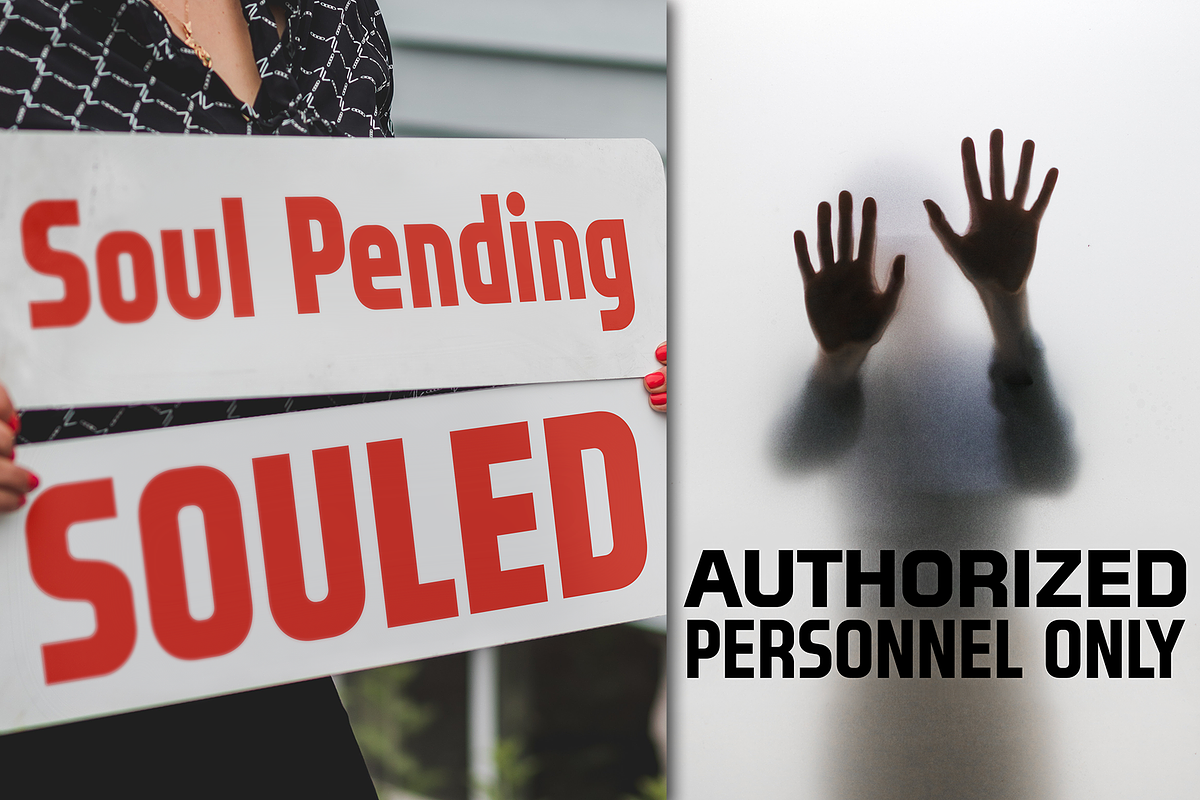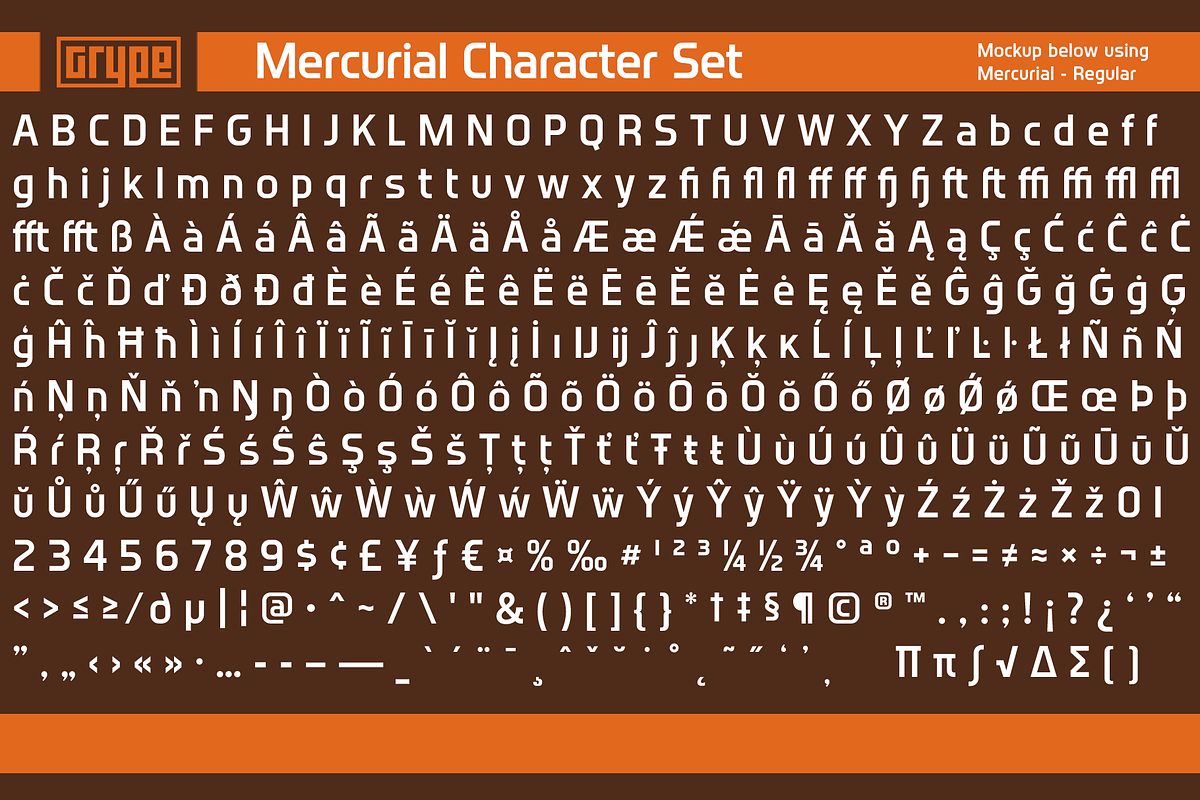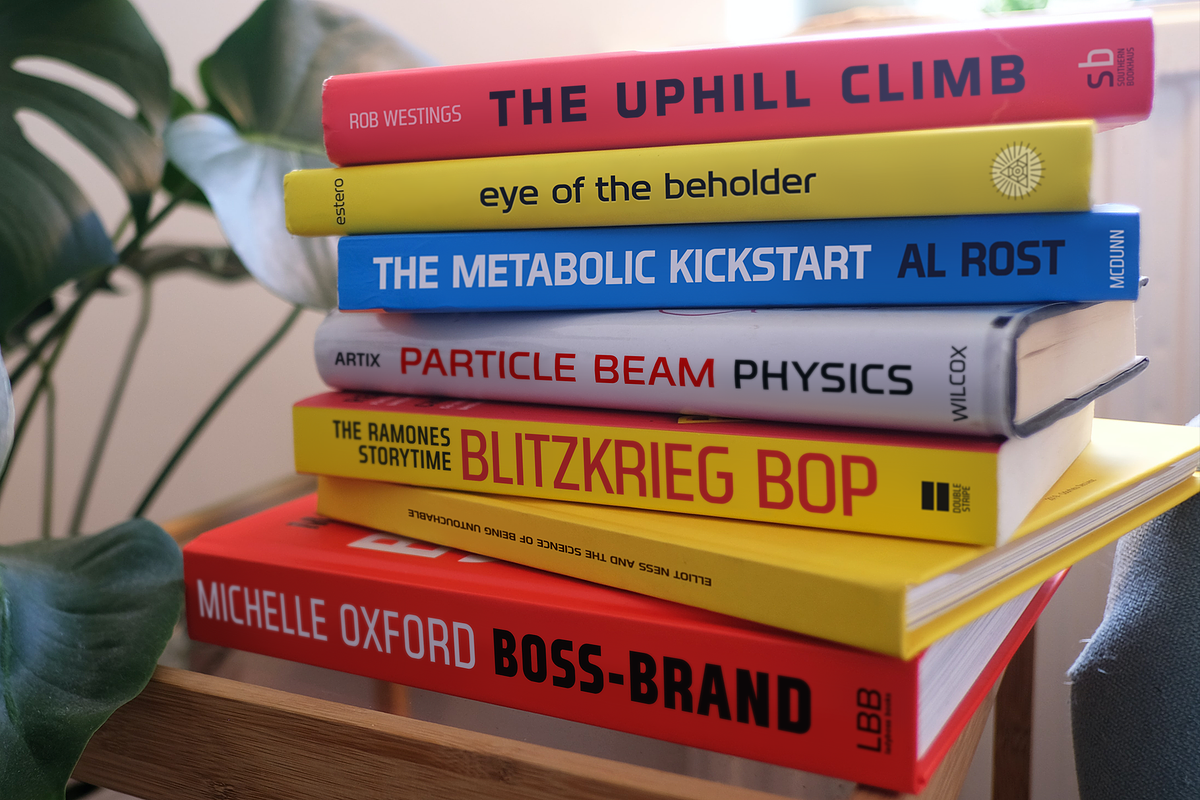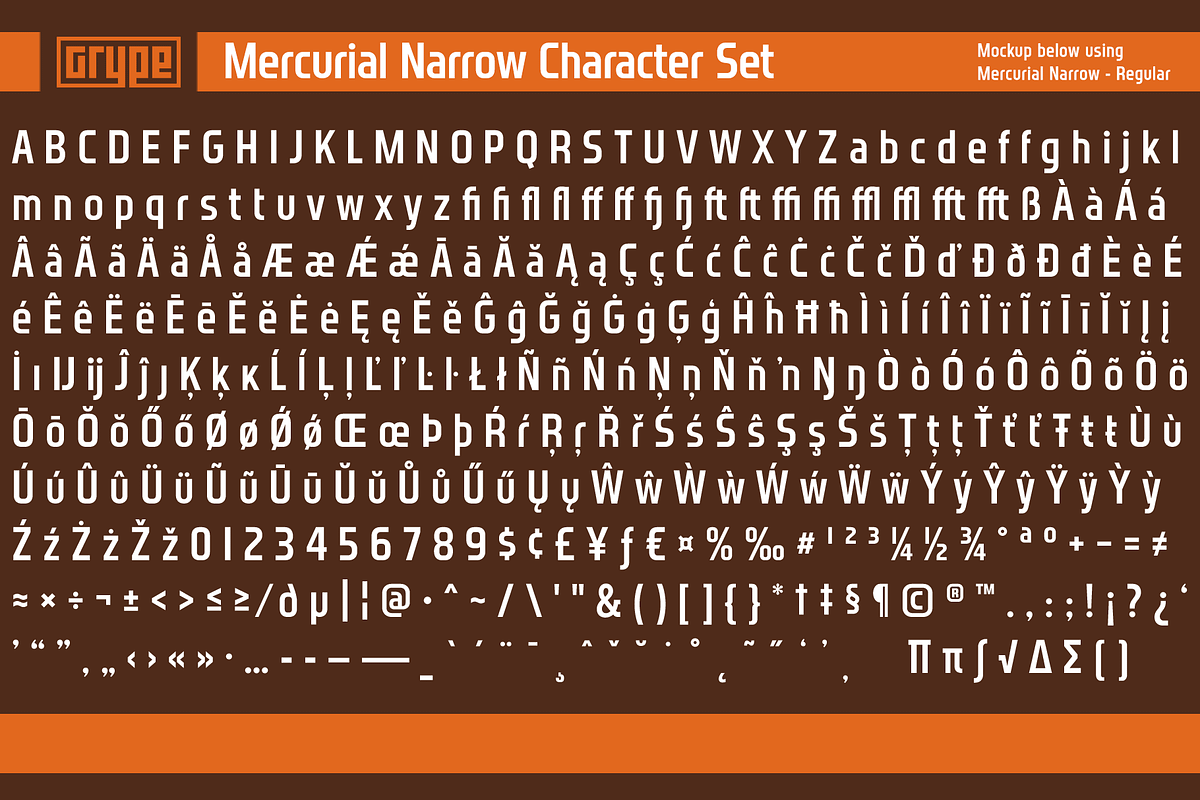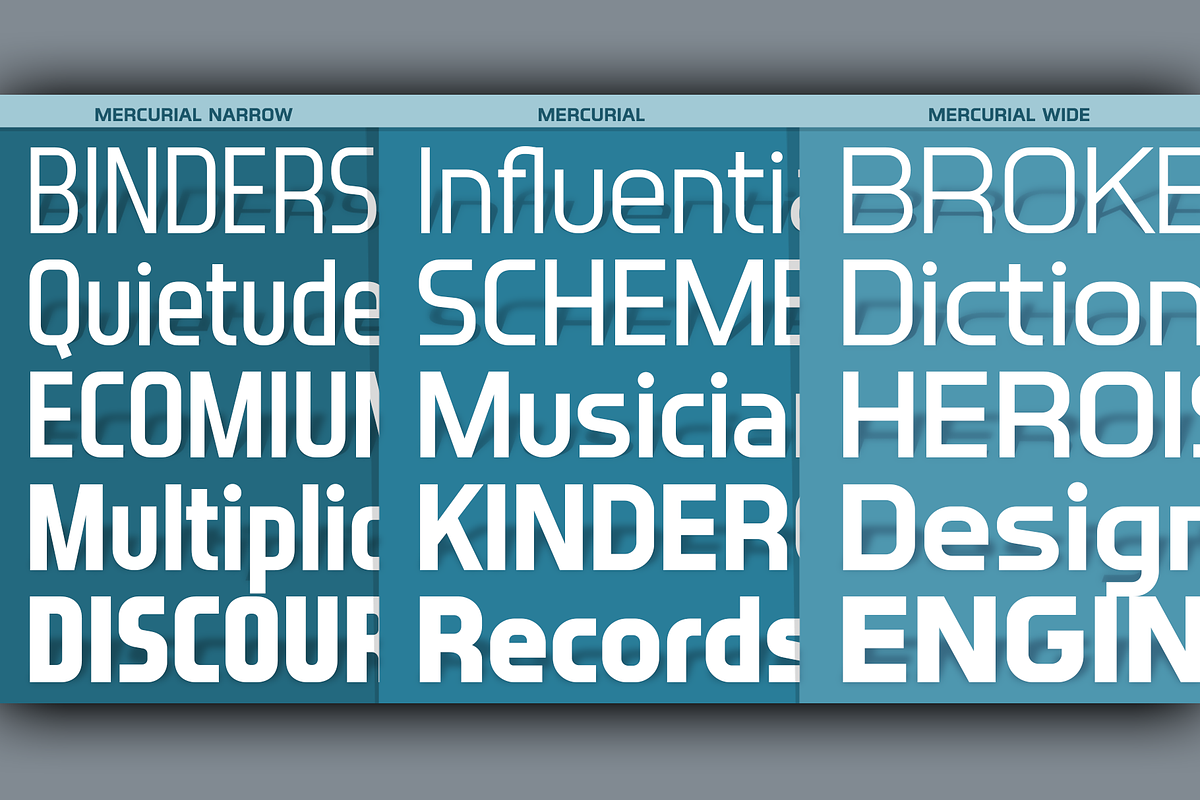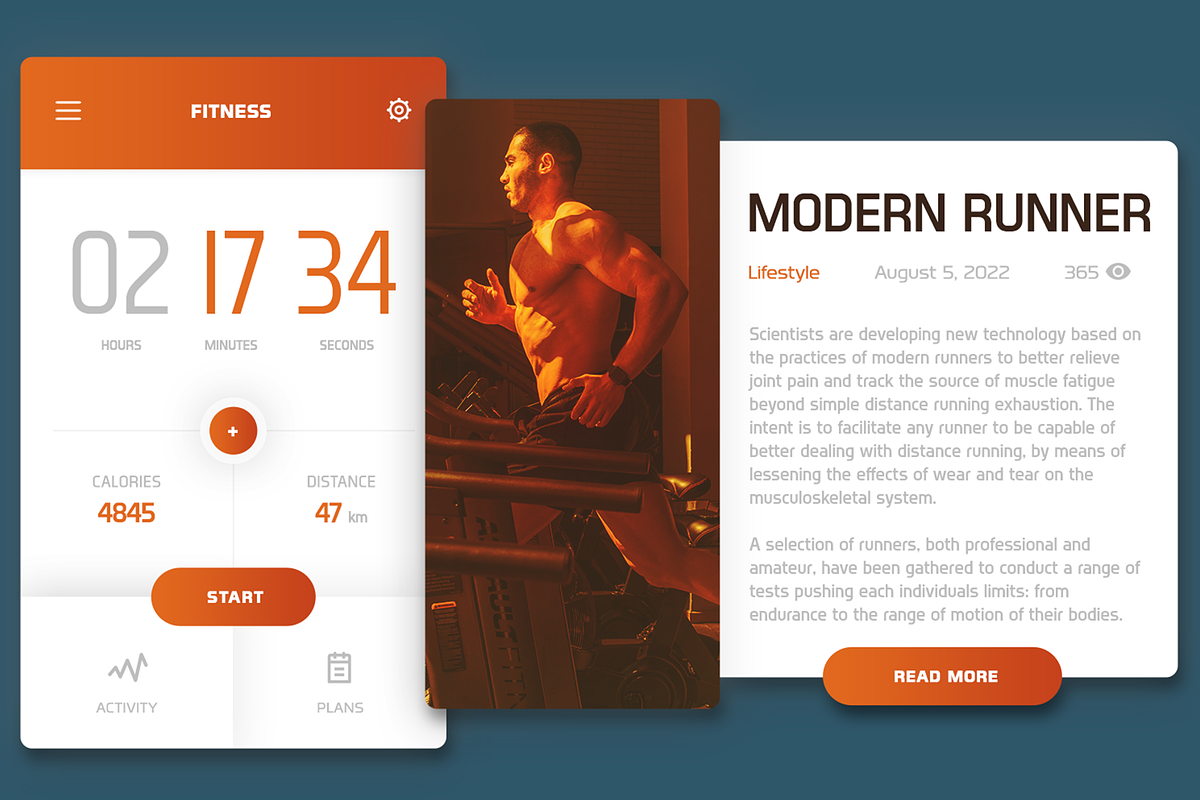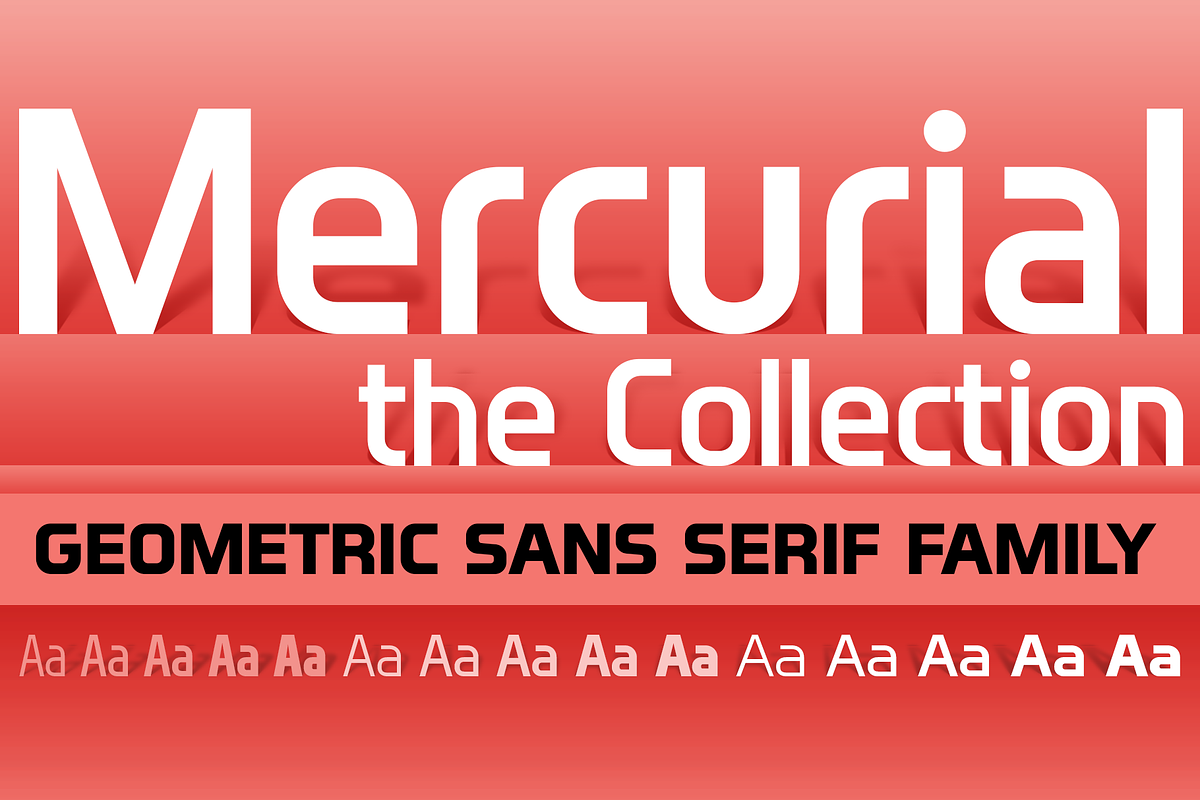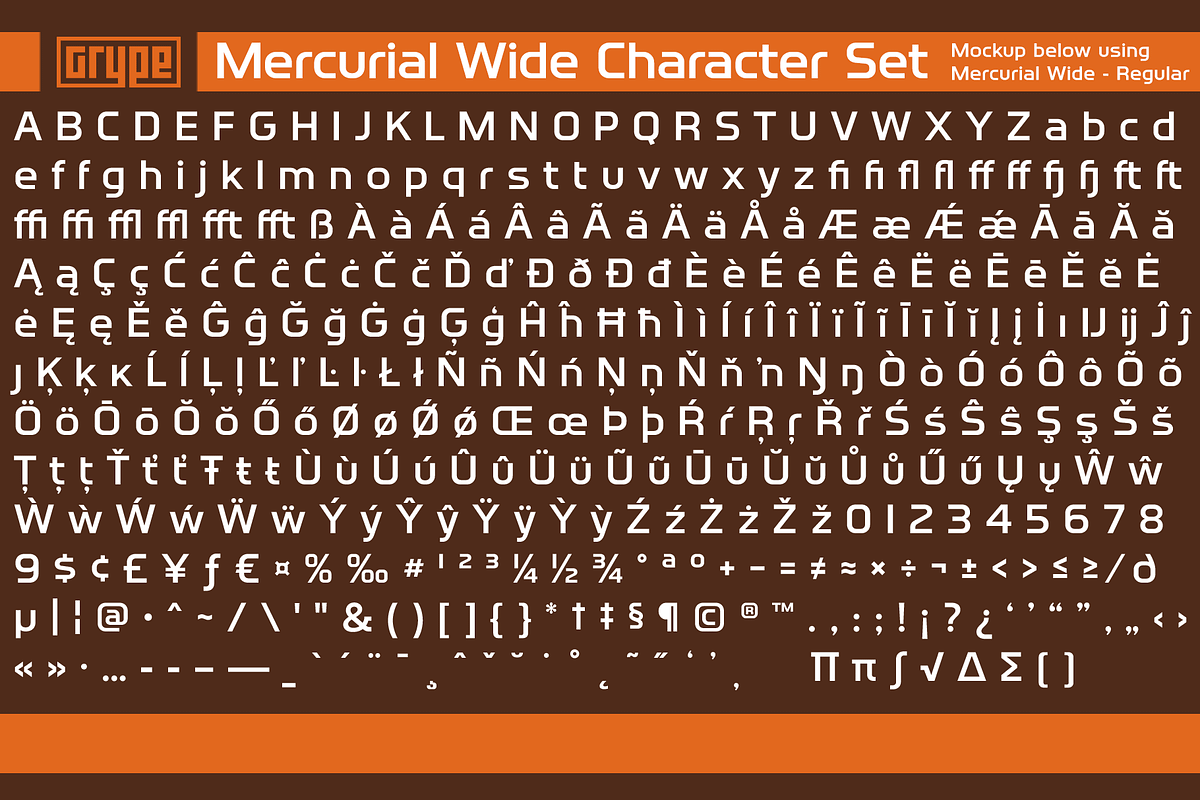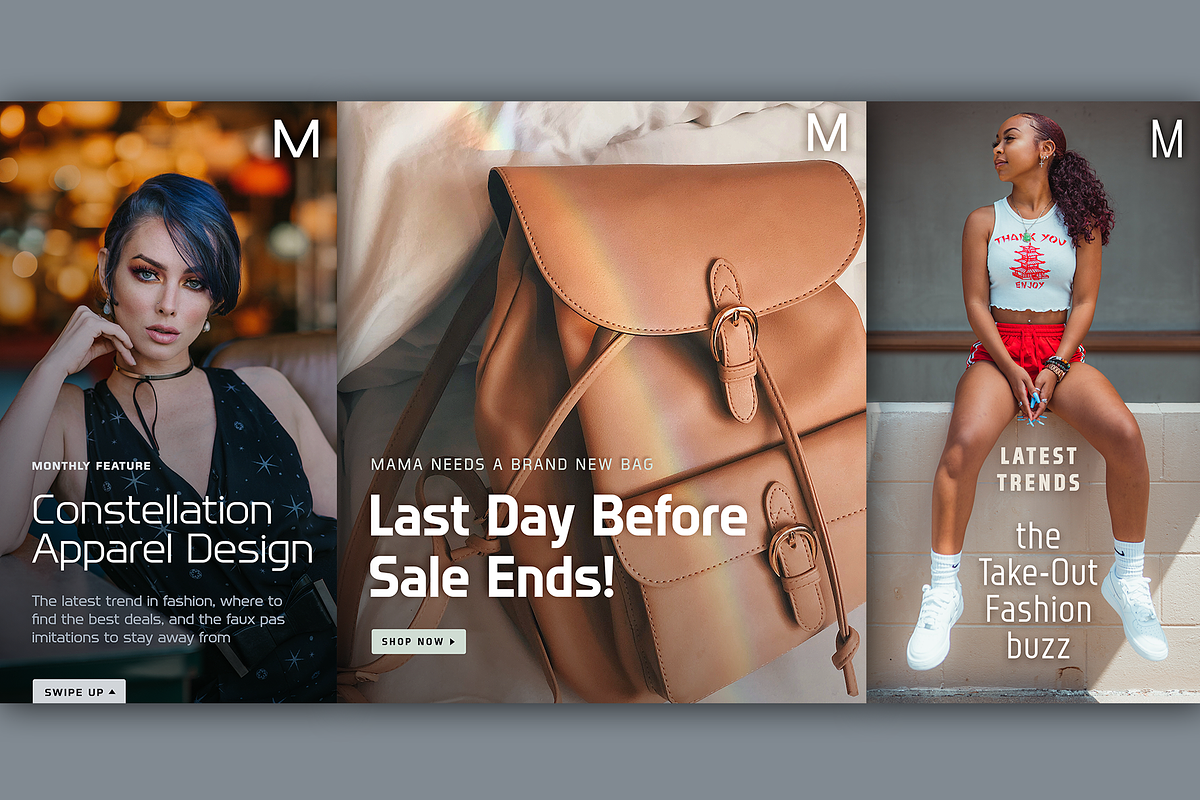
Mercurial Complete Collection
Geometric/Technical style logotypes have been developed for car chrome labels since the early 1980’s, but automobile companies don't monopolize the style by any means. During the 80’s and 90’s, a lot of these logos leaned towards the geometric sans styles and the swiss styling of fonts like Handel Gothic, while playing with varying degrees of squared rounds and varying expanded widths per logotype.
Mercurial has this flavor, but it wasn’t derived from logotypes. Instead, it began as a digitization of a film typeface from LetterGraphics in the early 70's known as "Sam". It visual ties to this genre of automotive logotypes and fonts like Handel Gothic lend a familiarity to it, yet it has an identity all its own.
As with so many automotive logotypes, this singular style film typeface, lacked an expansive family which shows off all potential the logotypes have and what they "could" be and do. And that's where we come in. What originally began as this family’s Regular Width - Bold Style has been expanded into a collection of 3 Width Families, each containing 5 Weights.
396 glyphs per style - including Capitals, Lowercase, Numerals, Punctuation and an extensive character set that covers multilingual support of latin based languages. (see the final poster graphics for a preview of the characters included)
3 widths in the collection: Narrow, Regular, & Wide 5 weights in each width family: Light, Book, Regular, Medium & Bold.
- You’re in need of stylish sans font family with a range of widths and weights.
- You’re love those 80’s automotive logos, but want more range of use.
- You’re looking for an alternative to Handel Gothic.
- You’re looking for a clean techno typeface for your rave poster designs.